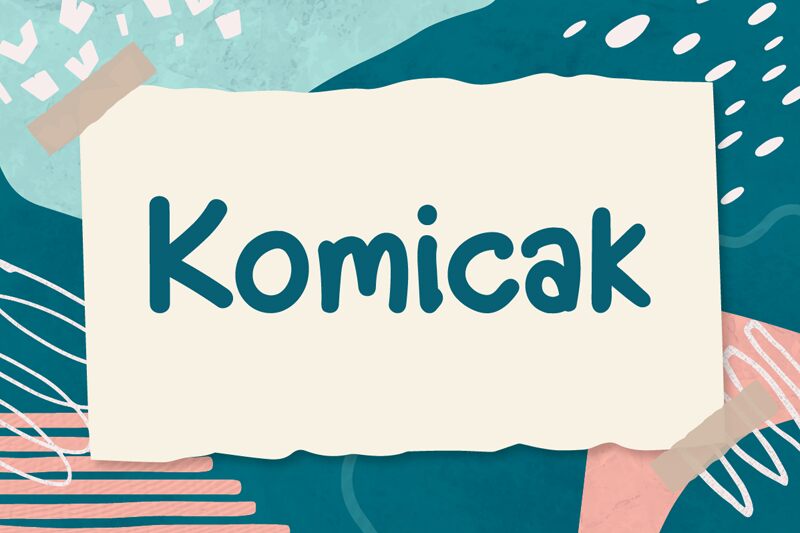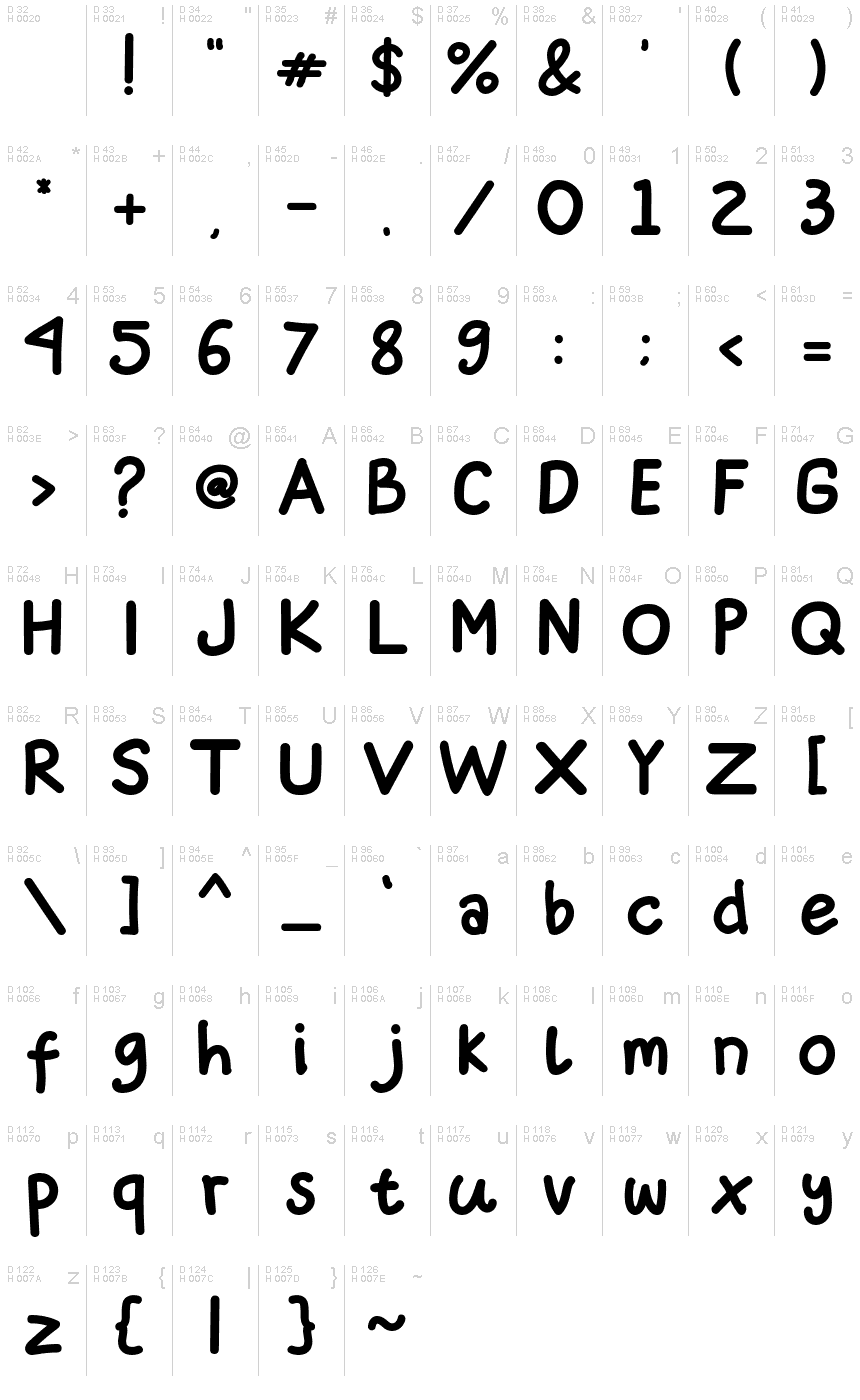
Komicak
Komicak font, designed by Handik Brush Script Writing, is a playful and whimsical handwritten typeface perfect for a variety of projects. With its unique style and bold strokes, Komicak is ideal for branding, logos, social media graphics, posters, and more. This semi-bold font adds personality to any design project while still being legible and easy to read. Whether you're designing for a children's book or a trendy fashion brand, Komicak has the versatility to fit your needs. Add some fun to your next project with Komicak!
This font is very fun, funny, entertaining and has a great sense of font, this font is suitable for hand drawings, posters, quotes, etc.